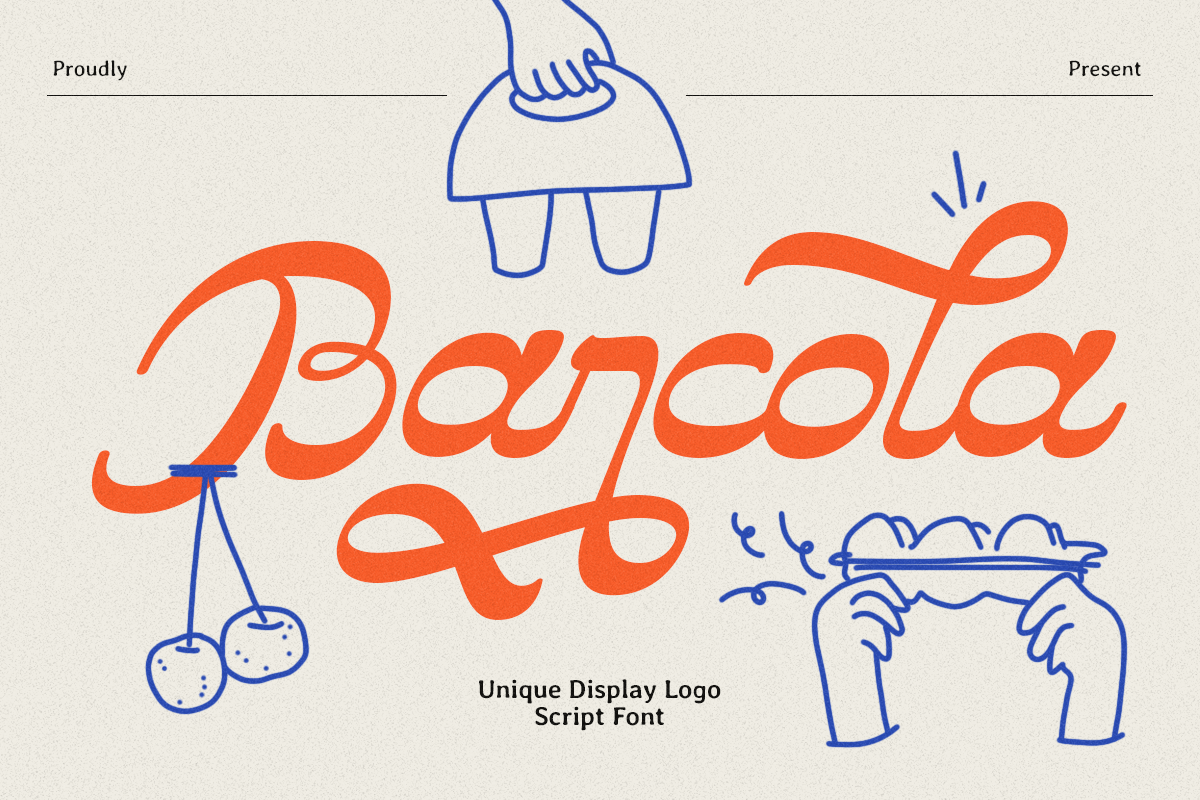
Barcola
-Unique Display Logo Script Font
Barcola
Barcola is a unique display logo script font designed to make your typography feel confident, expressive, and instantly recognizable. With a bold script flow and distinctive letter shapes, it delivers the perfect balance between handcrafted personality and modern display impact.
Built for logo design and brand identity, Barcola shines on packaging, apparel labels, café and lifestyle branding, posters, social media graphics, and standout headlines. Its unique script presence helps create memorable wordmarks that feel premium, creative, and full of character.
Whether you’re crafting a modern brand mark or adding a bold scripted accent to your layouts, Barcola brings a distinctive voice that elevates both digital and print designs.
Barcola – Unique Display Logo Script Features
• Unique display script styling made for logo work
• Bold, expressive strokes with standout personality
• Ideal for branding, packaging, posters, and social media headlines
• Great for boutique, lifestyle, food, and creative business identities
• Strong readability for modern wordmarks and titles
• OpenType features for creative flexibility
Make your wordmark unforgettable with Barcola – a bold logo script built to stand out in any brand identity 🚀